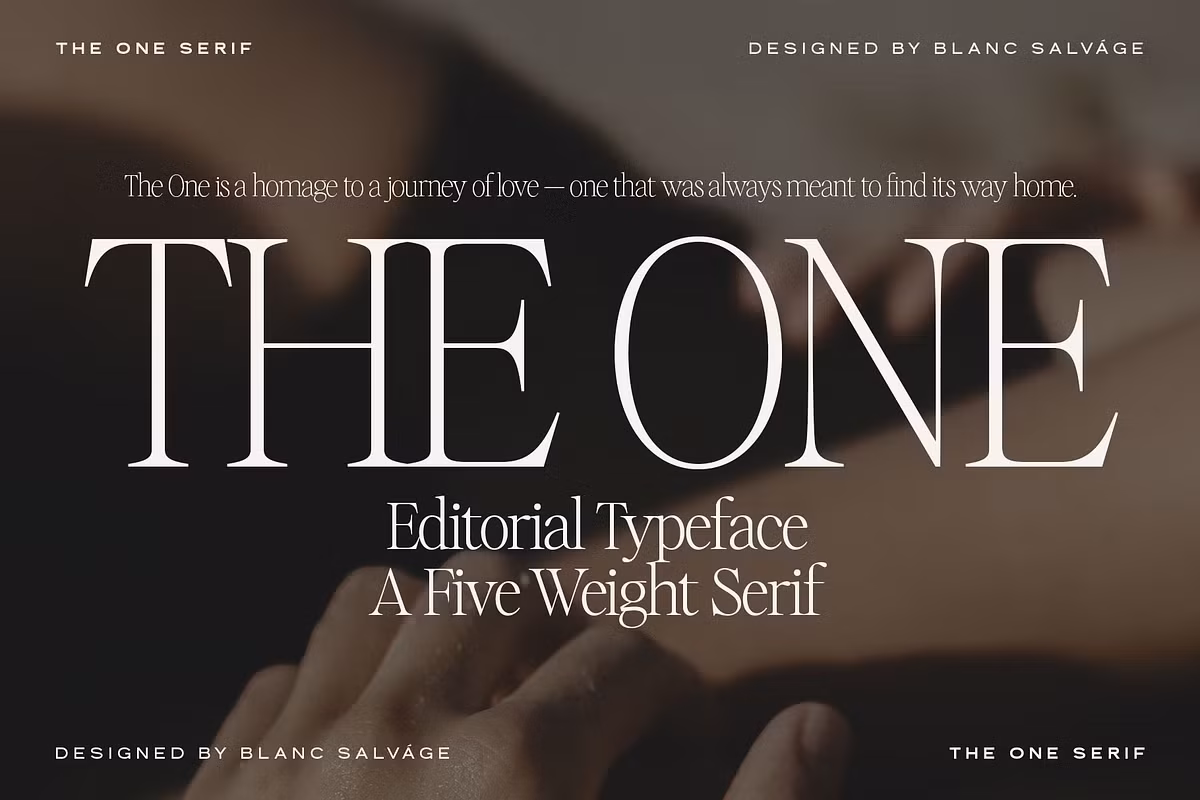
The One Editorial Serif Font Free Download is a sophisticated and modern typeface designed specifically for editorial and professional design projects. With its clean lines, elegant serifs, and high readability, this font is perfect for creating magazine layouts, newspaper headlines, branding materials, and websites. The balanced proportions and timeless design ensure that The One Editorial Serif Font Free Download works seamlessly in both print and digital formats. Whether you're designing for a luxury brand, a stylish publication, or a professional portfolio, this font offers the versatility and class you need. Experiment with its polished look in personal projects before purchasing a commercial license and elevate your designs with this beautifully crafted editorial serif font.